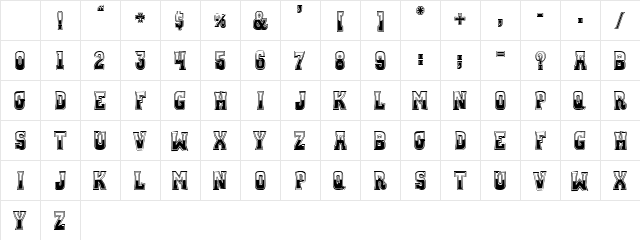
Complete Whiskey Town Buzzed glyph index. Displaying only characters natively supported by Whiskey Town Buzzed font.
Whiskey Town is a composed and adaptable typeface that performs quietly and consistently across a wide range of design contexts.
Who designed the Whiskey Town Buzzed font?